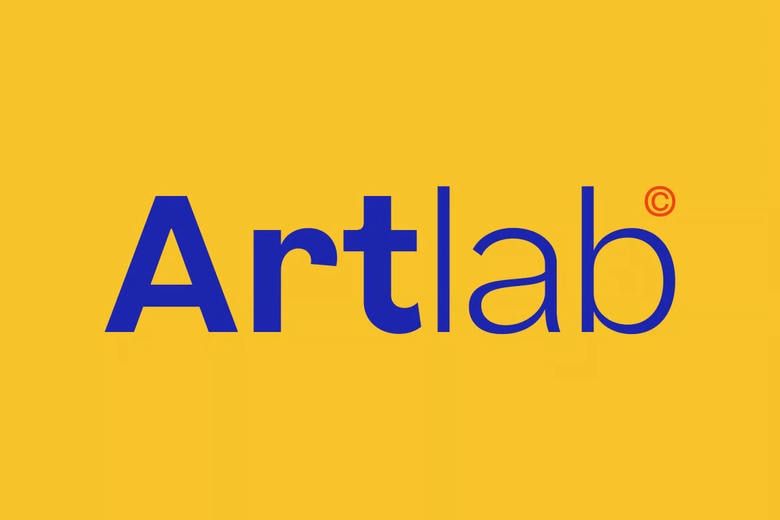
Artlab Font
Artlab is a modern variable sans serif typeface known for its clean and visually appealing design. It offers a versatile range of 18 styles, making it suitable for a variety of design applications.
Artlab Sans Serif Font Family